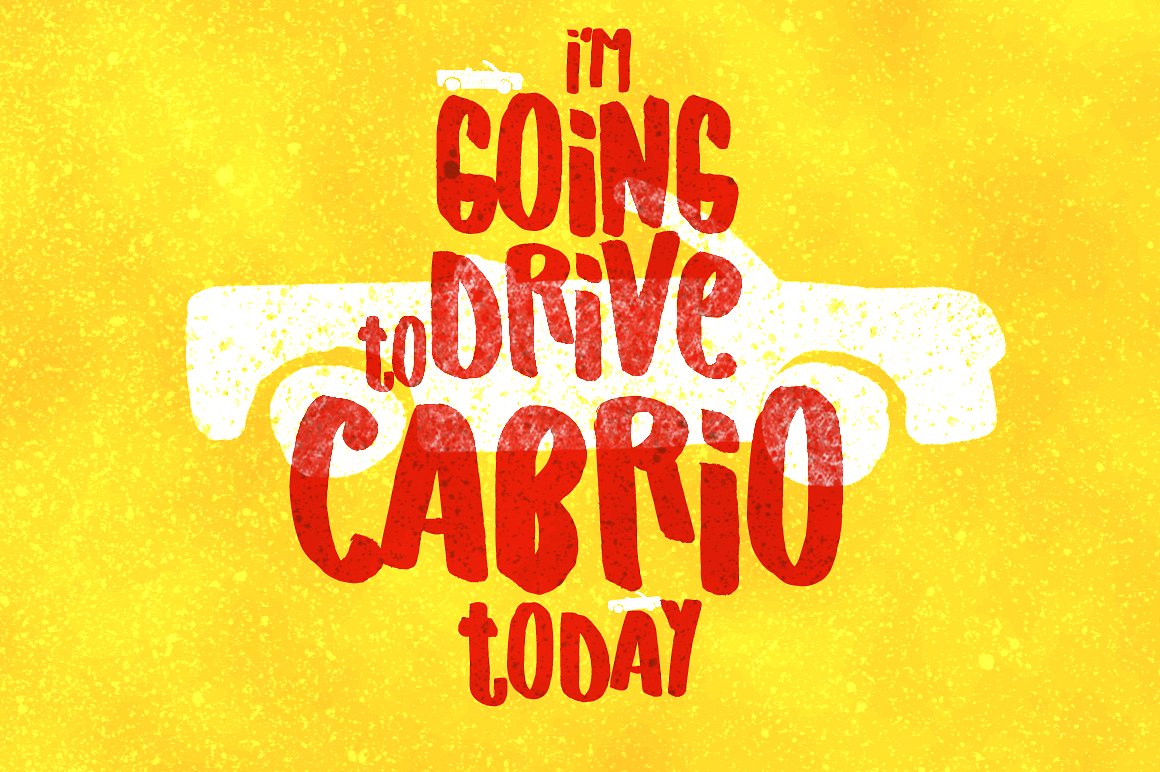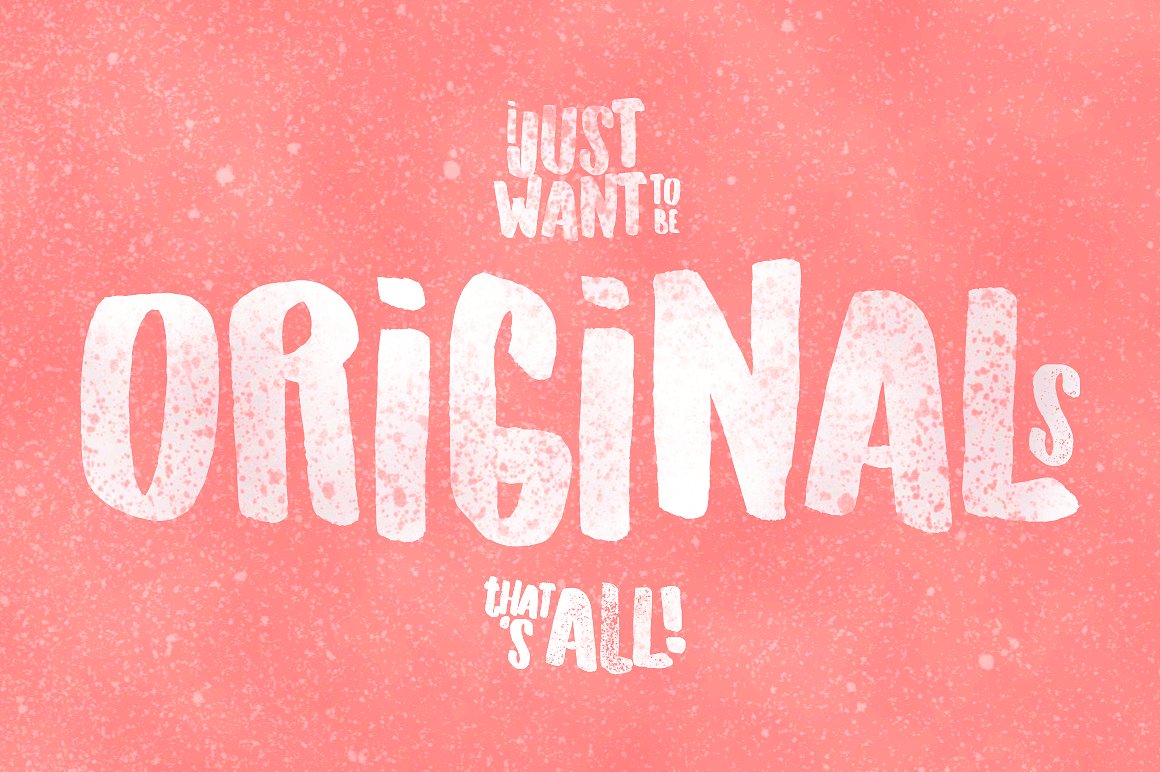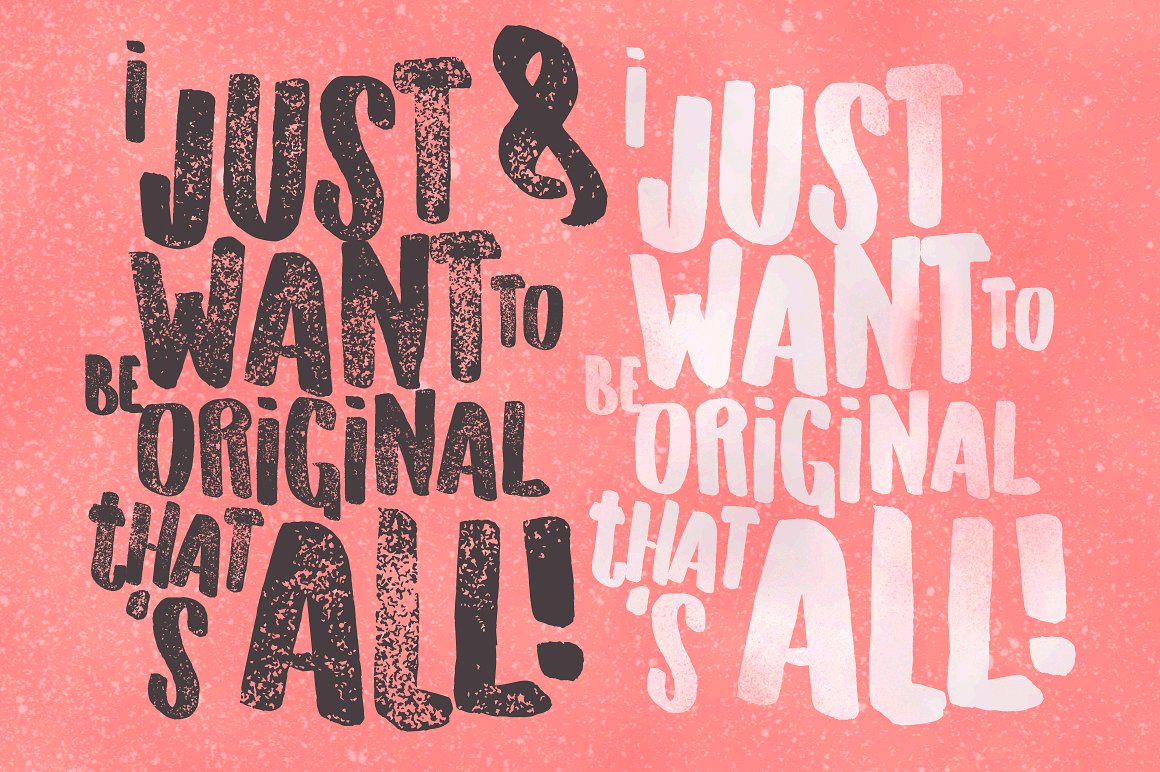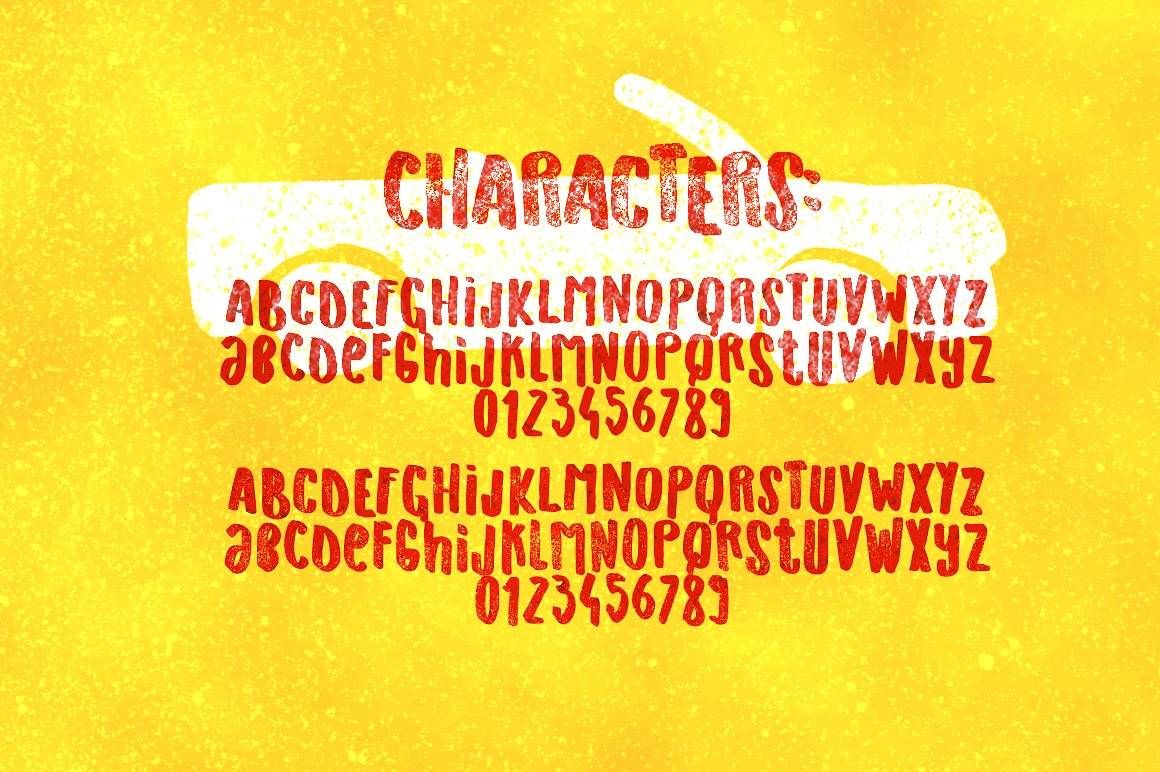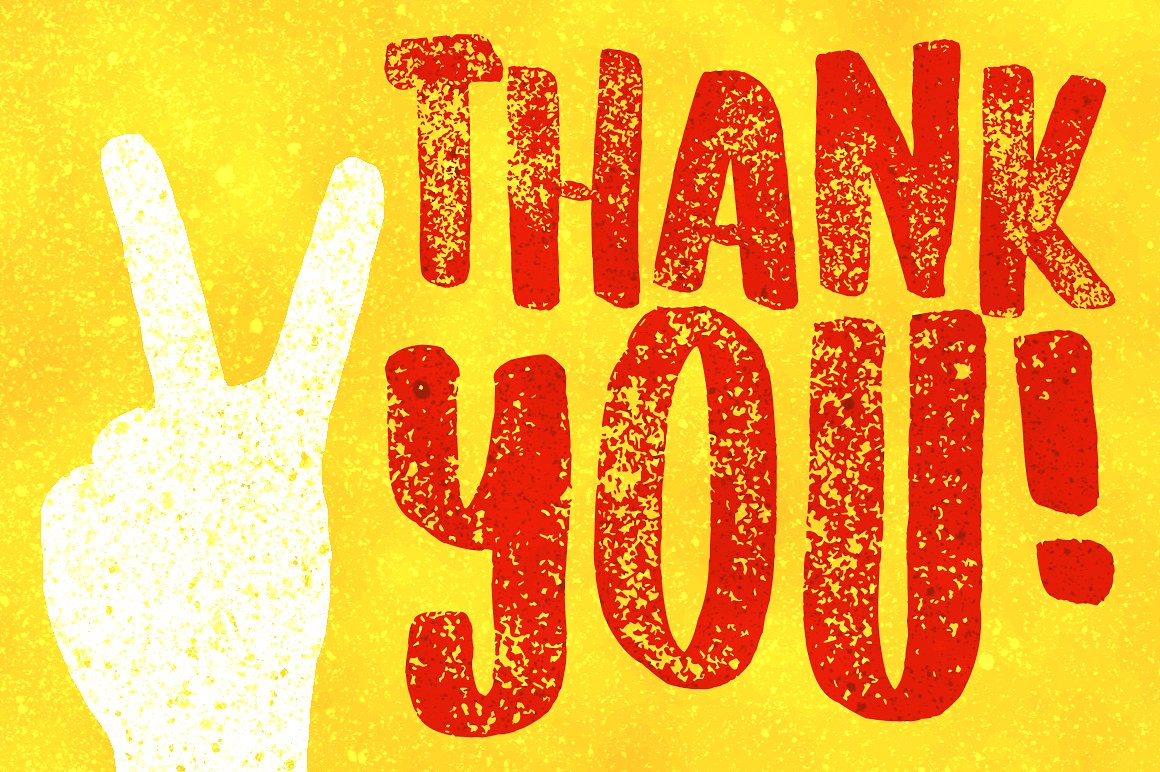
Originals Typeface is a handdrawn playful display font designed by LeoSupply.co from Croatia. The font can be used for many purposes but looks amazing on signs, shirts or cards. Also, it works perfect on fresh summer theme designs. Free for personal and commercial use!